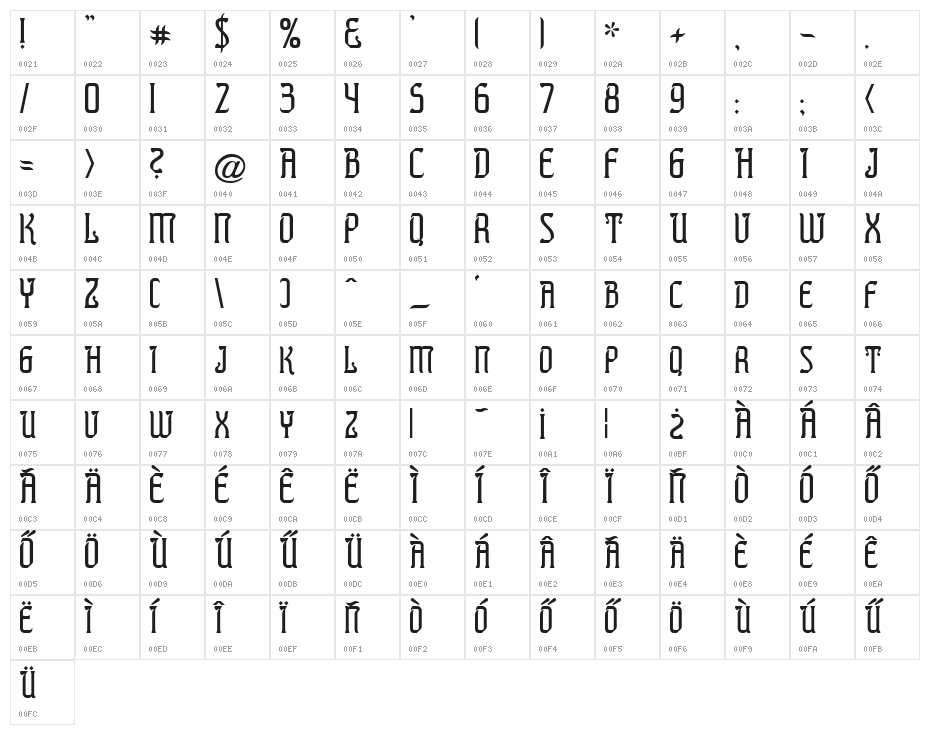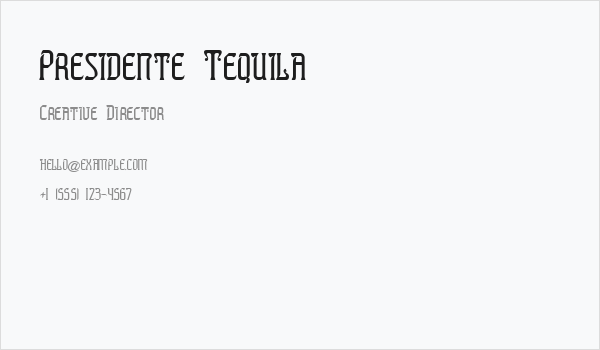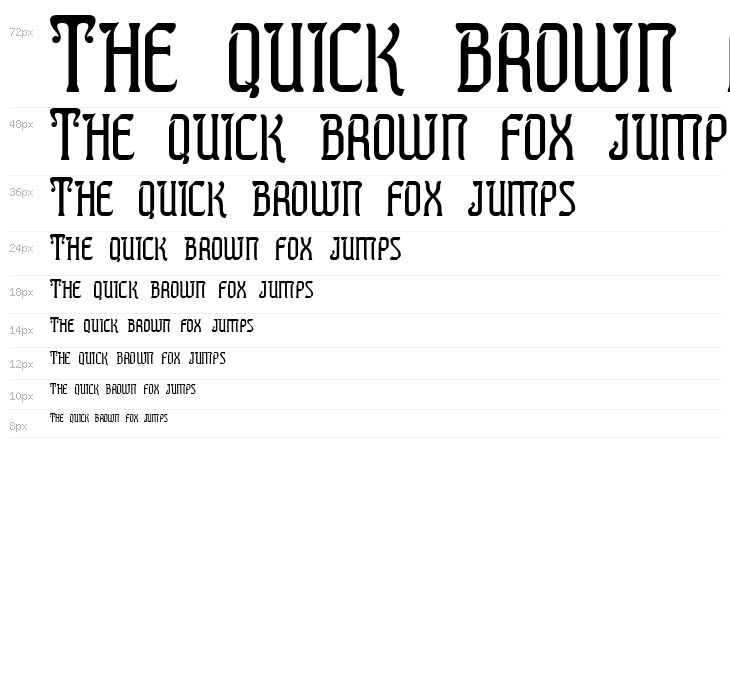
Presidente Tequila Font
Presidente Tequila Description
This font features a bold and distinctive style with a modern twist on traditional serif elements. The characters are designed with sharp, angular edges and unique cutouts, giving it a dynamic and eye-catching appearance. The uppercase and lowercase letters maintain a consistent height, while the numerals and special characters are crafted to complement the overall aesthetic. The font's design is both functional and decorative, making it suitable for a variety of creative applications. Its strong presence and unique character shapes make it ideal for projects that require a bold statement.
| Proposed Projects | Ideal for branding, logo design, packaging, and headlines that require a strong visual impact. |